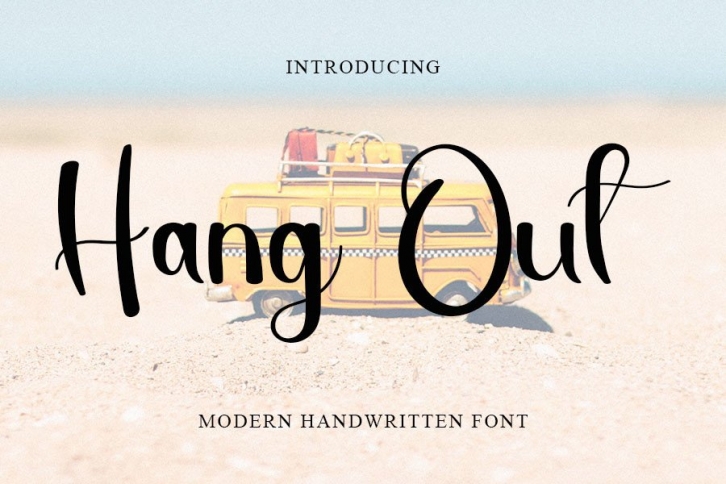
Hang Out is a colorful handwritten font carefully created with a touch of elegance. Clean and a little bit quirky, this font is the perfect fit for all of your logos, branding, social media posts, and crafty DIY projects.